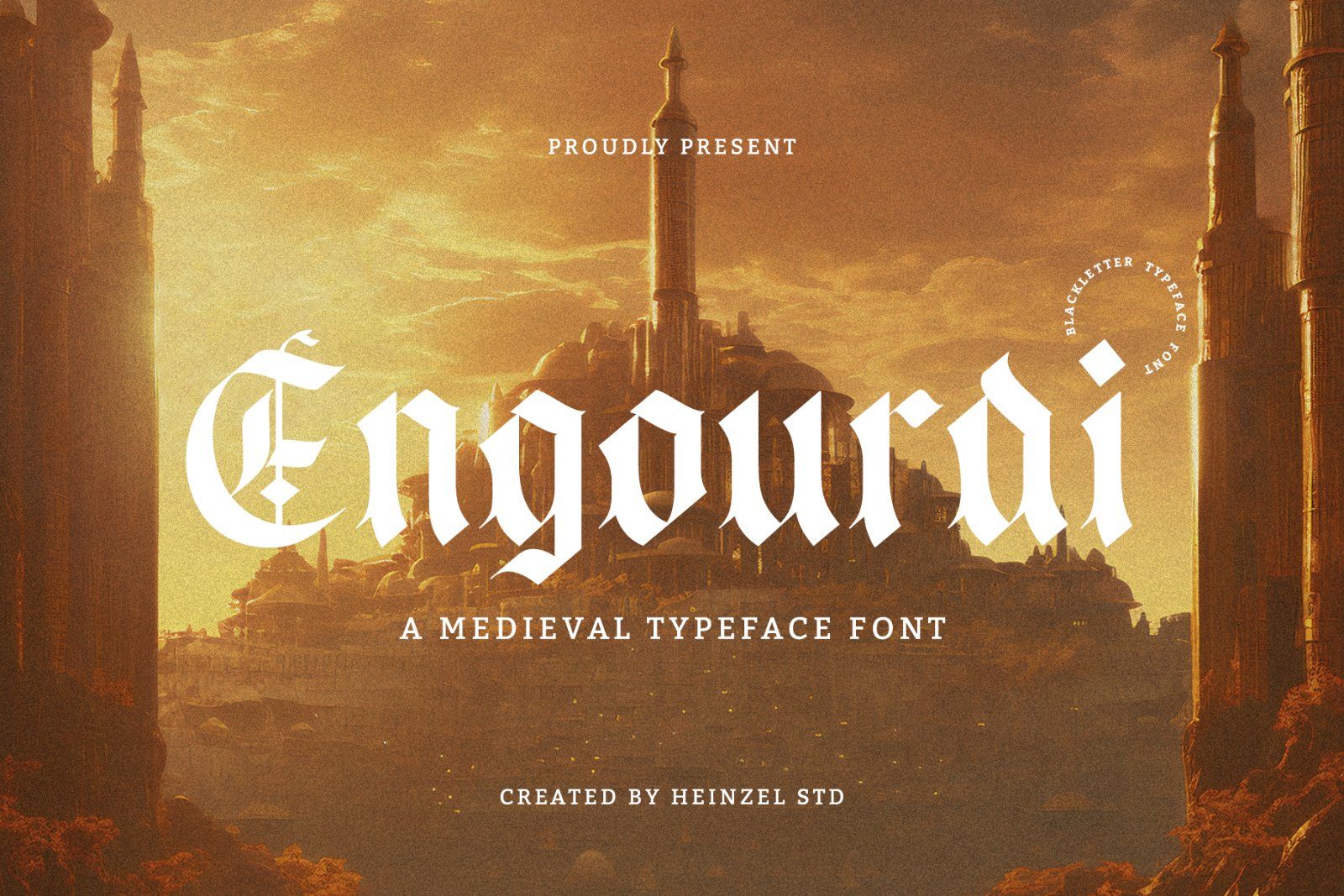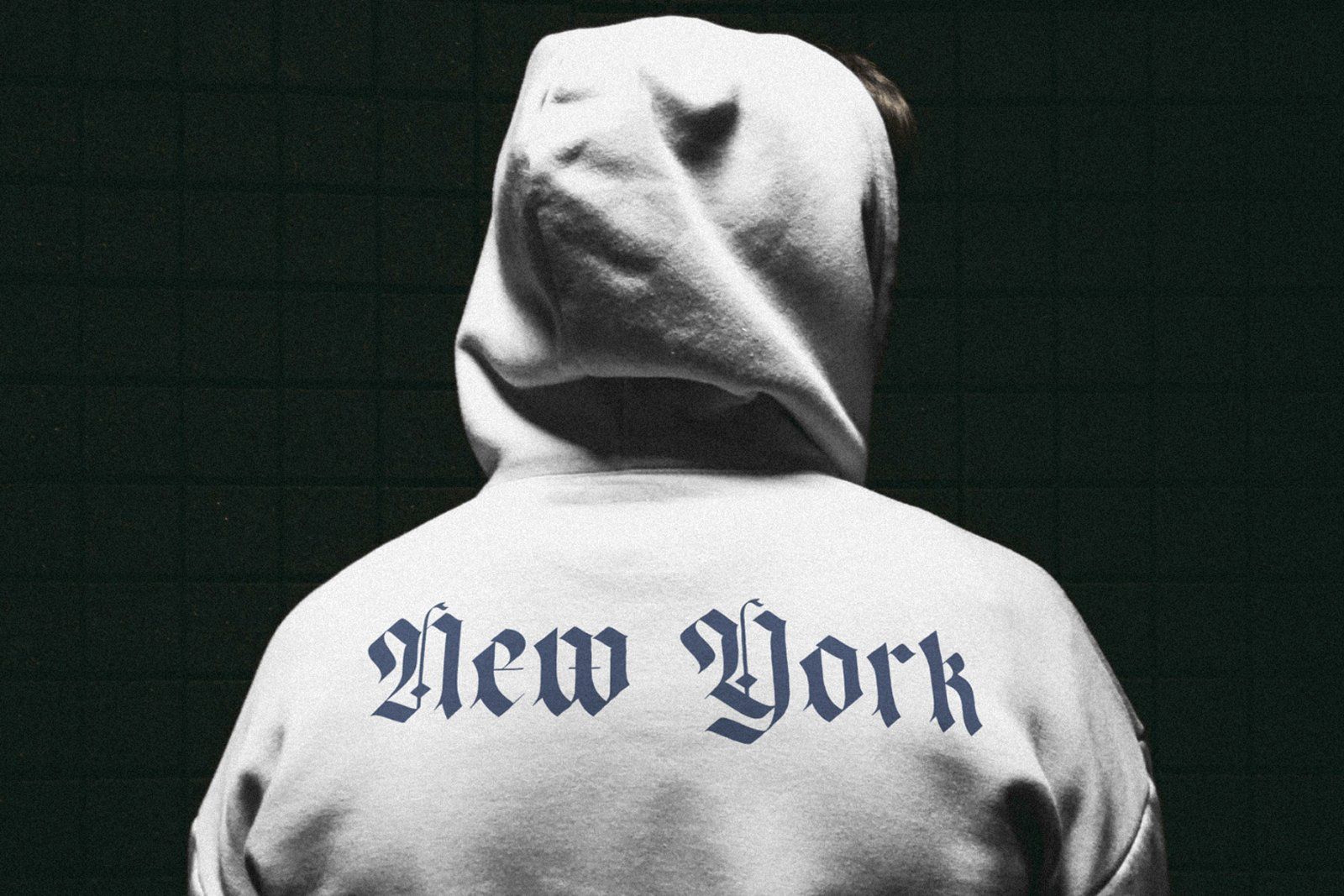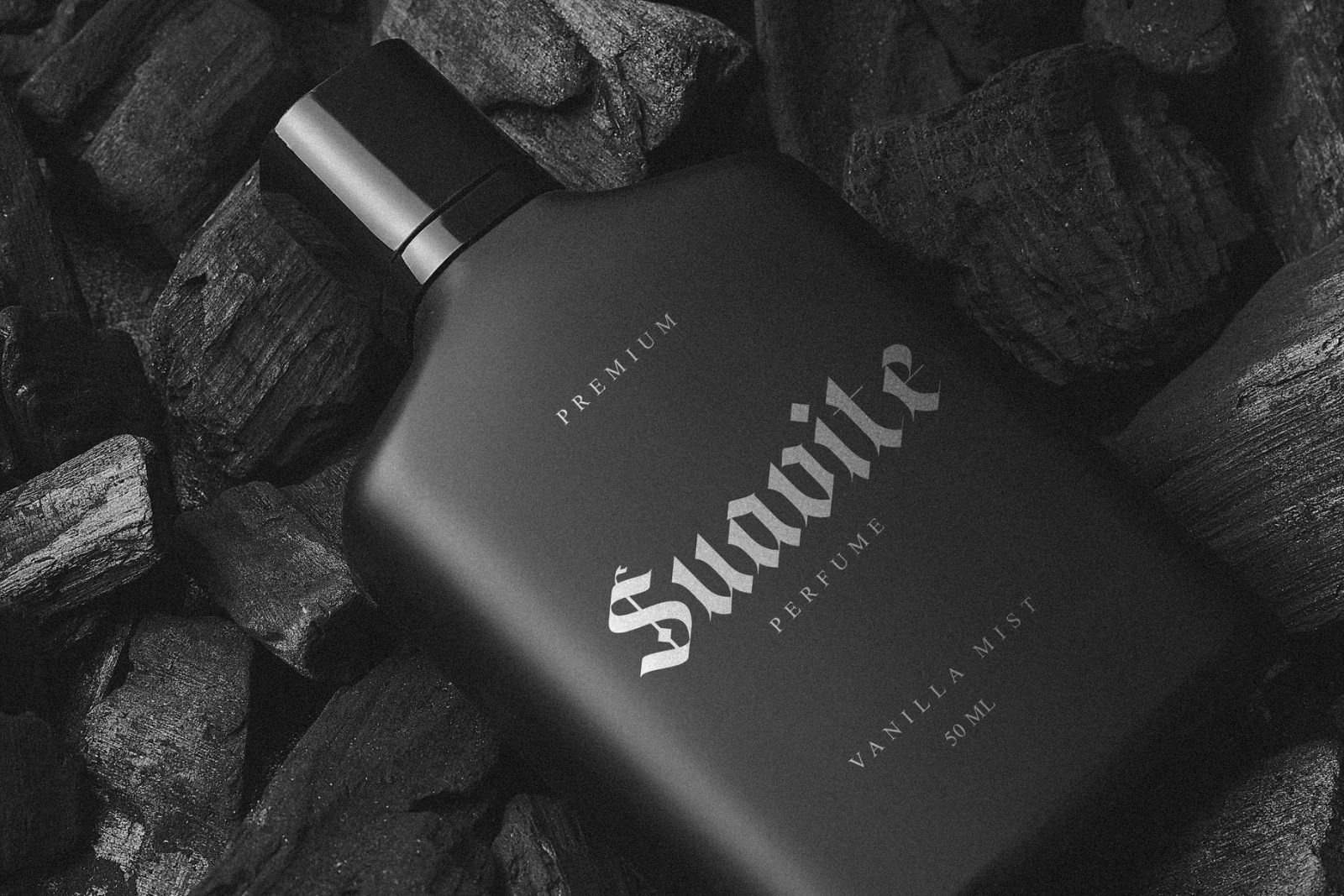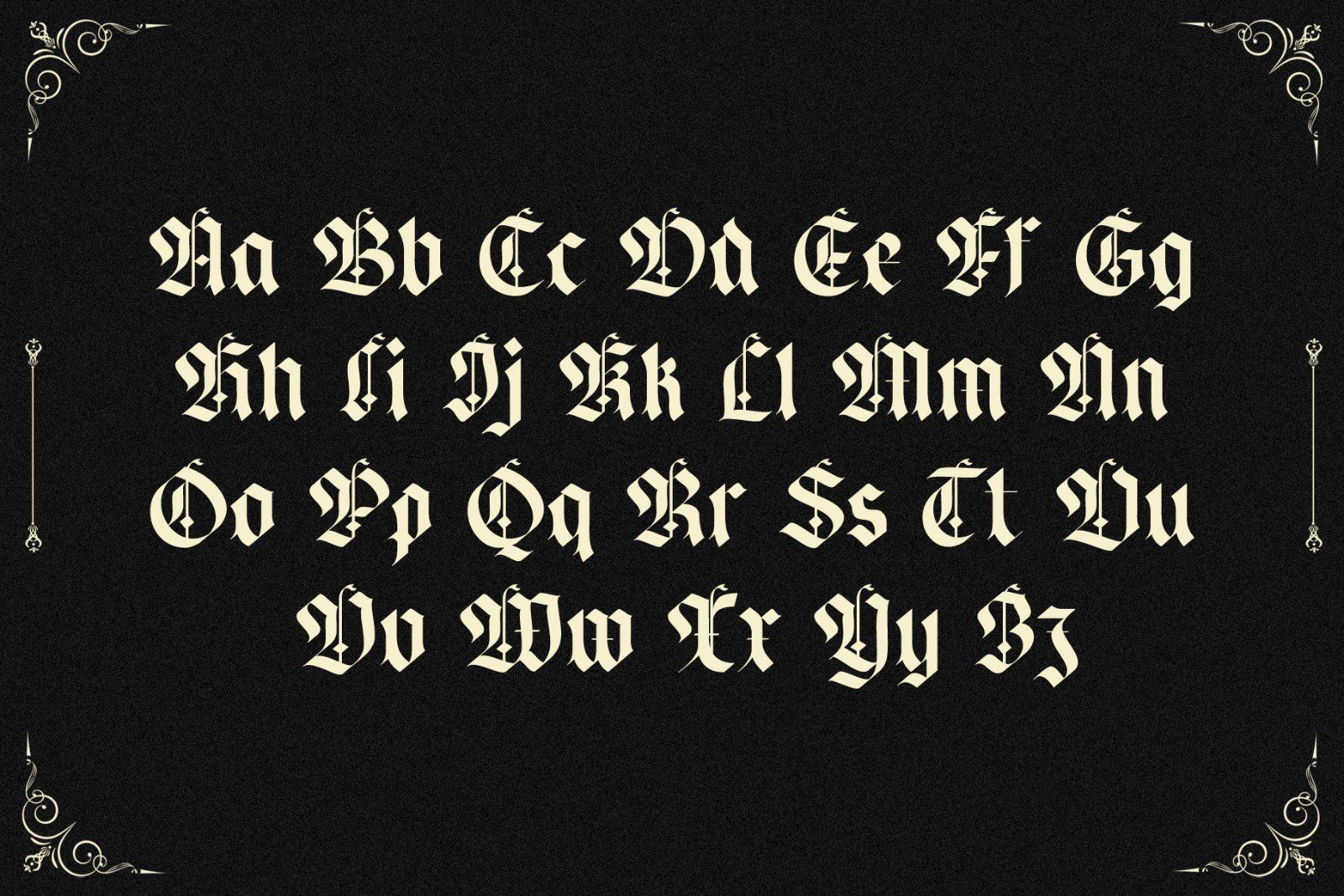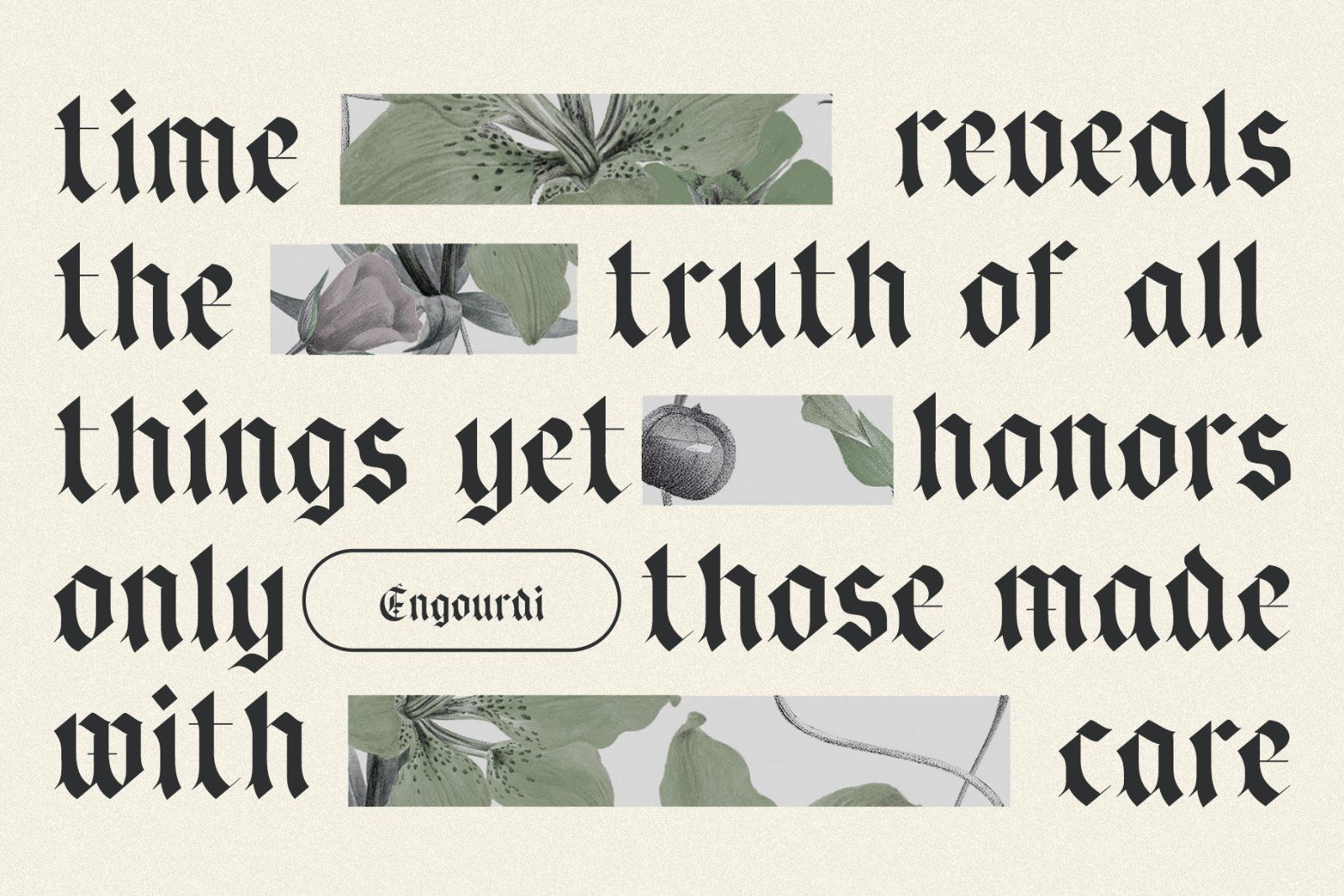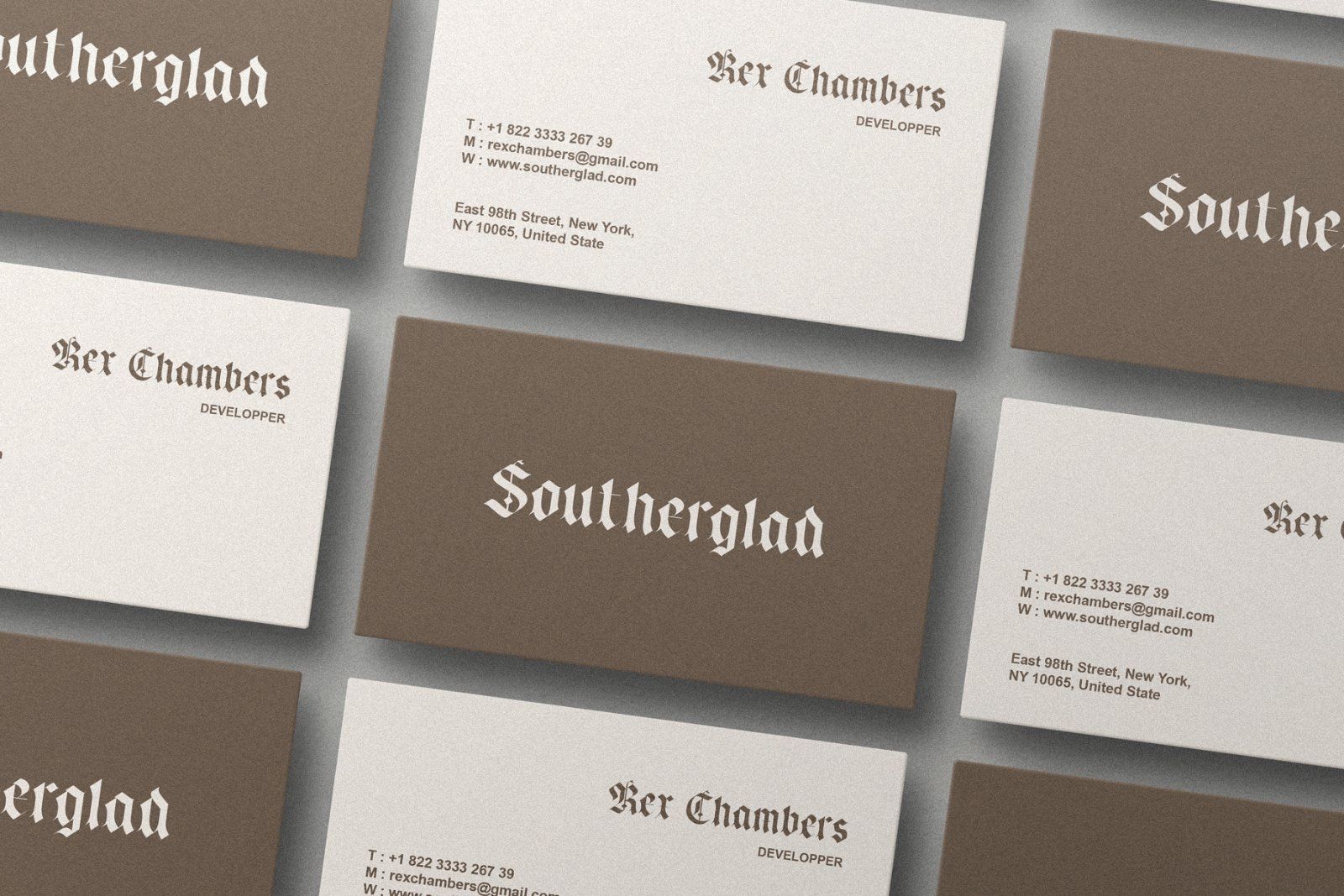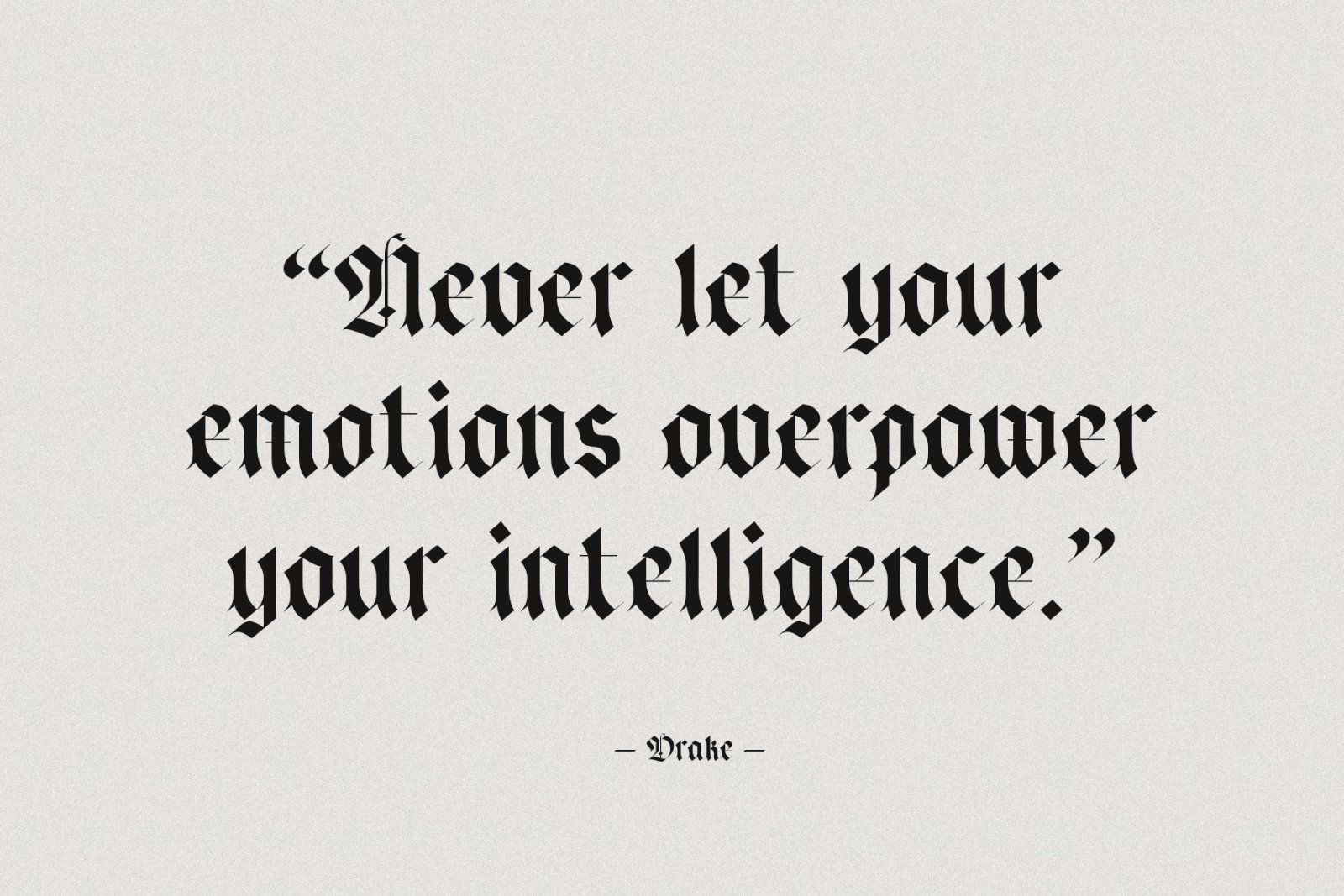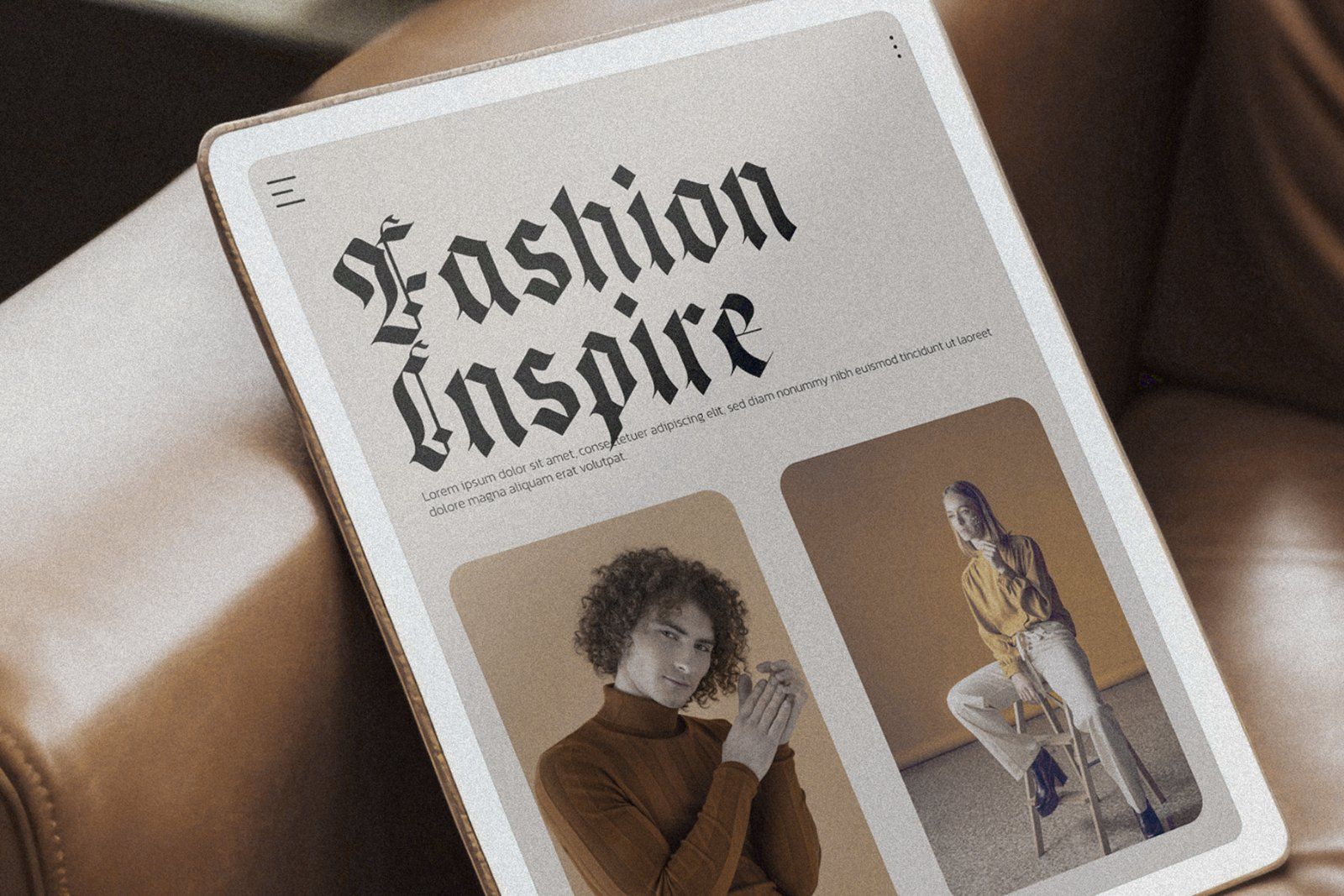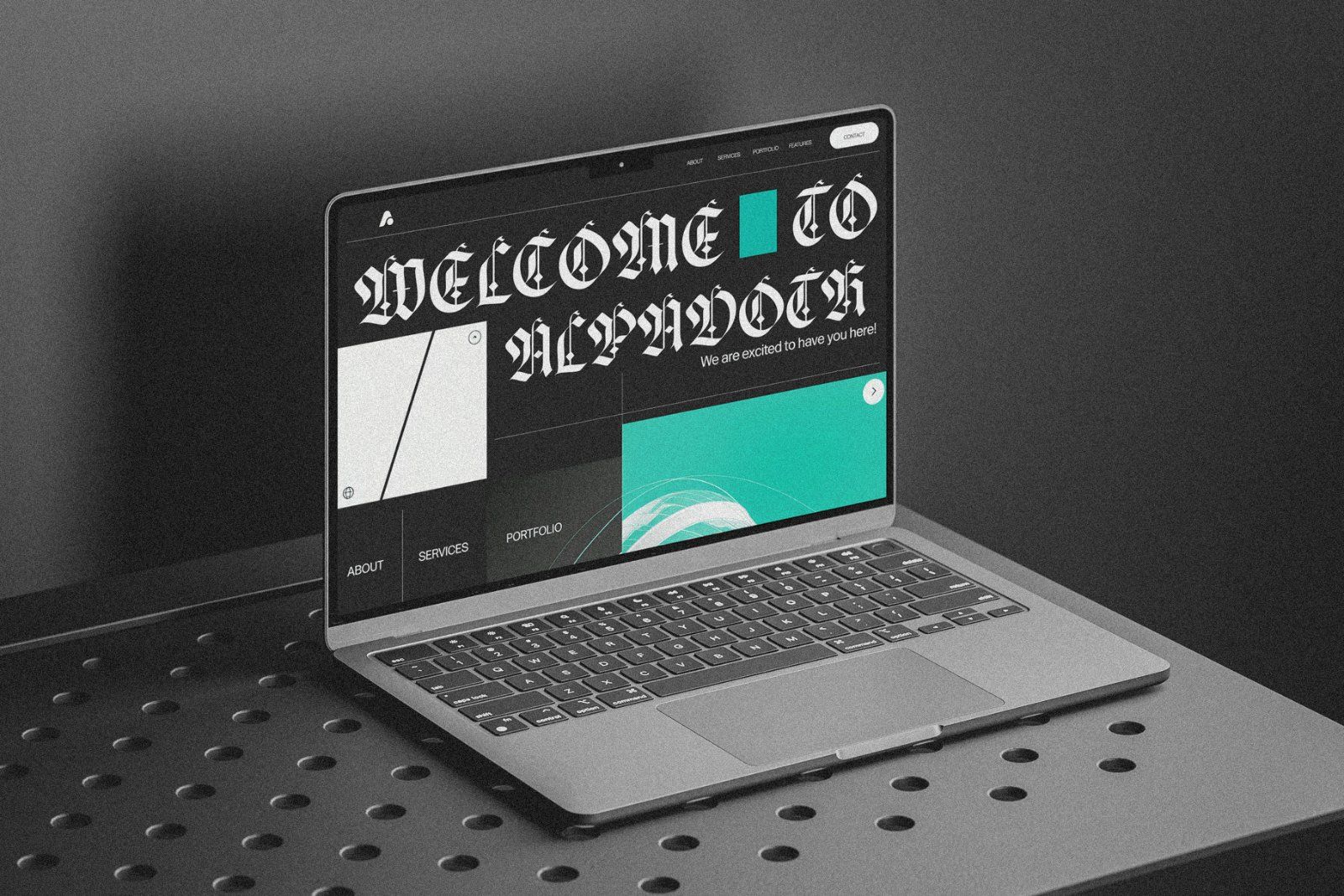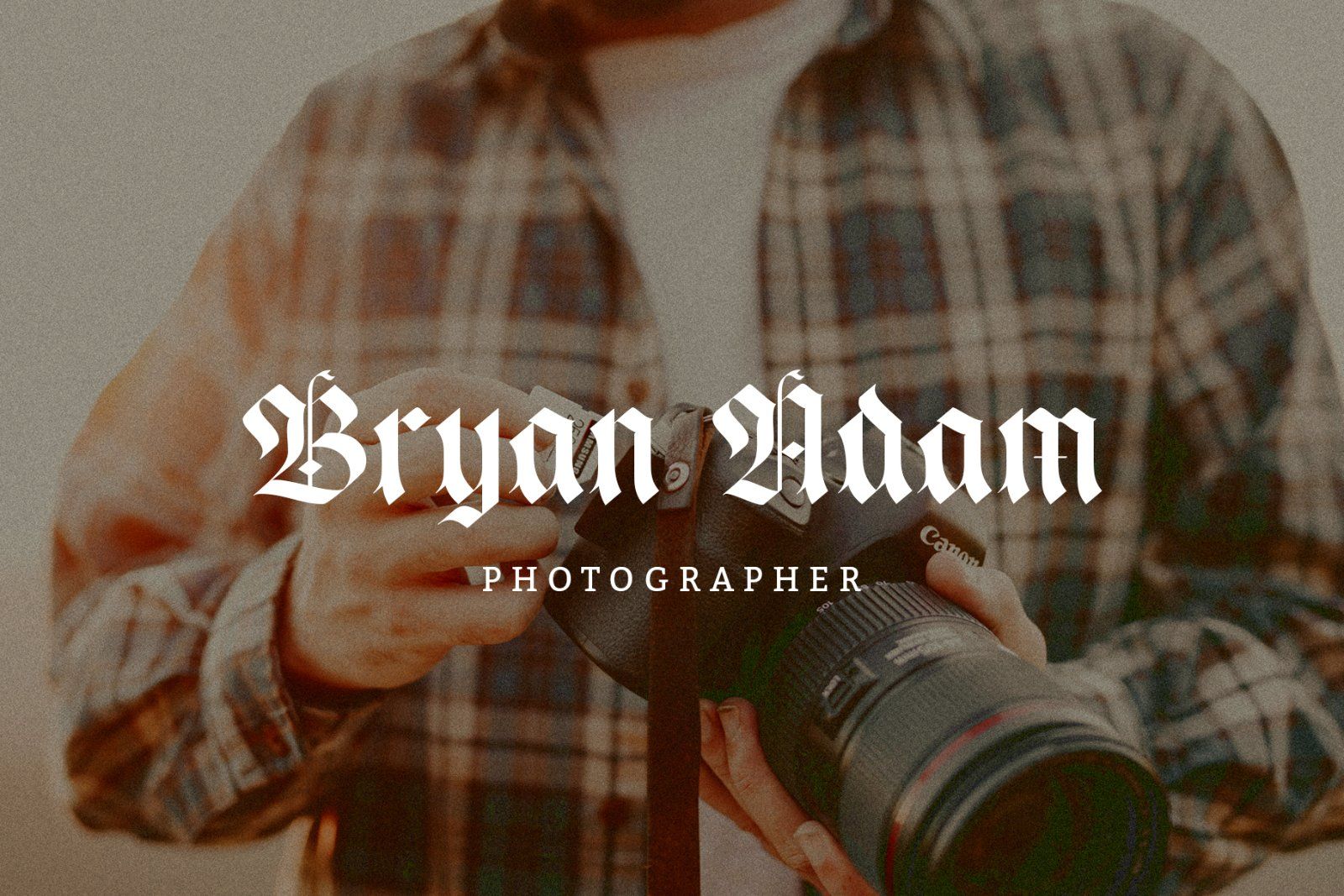
Engourdi is a striking medieval blackletter font inspired by the dramatic lettering and timeless atmosphere of the Middle Ages. Featuring bold gothic forms, sharp angular details, and an authentic old-world character, Engourdi brings a powerful historical aesthetic to modern graphic design.
Designed by Heinzel Std, Engourdi is ideal for projects that need a strong medieval, gothic, or vintage identity. Its distinctive blackletter style works beautifully for medieval branding, fantasy artwork, game titles, album covers, posters, logos, apparel designs, tattoo artwork, beer labels, packaging, invitations, and editorial designs.
The dramatic letterforms create an instantly recognizable visual presence while maintaining the decorative character associated with traditional blackletter typography. Engourdi is especially suitable for designs inspired by medieval kingdoms, castles, legends, fantasy worlds, historical themes, dark aesthetics, and vintage European typography.
Whether you're creating a fantasy logo, medieval poster, gothic merchandise, or a powerful title treatment, Engourdi adds an authentic and commanding typographic style to your work.